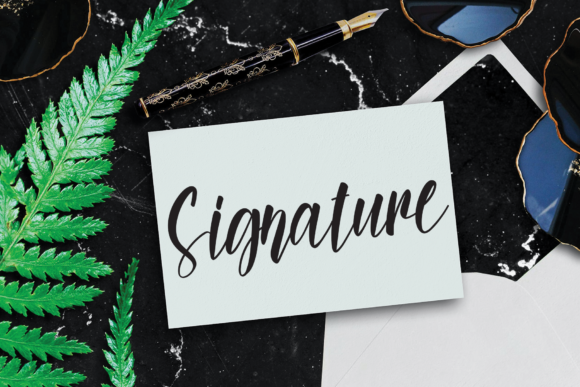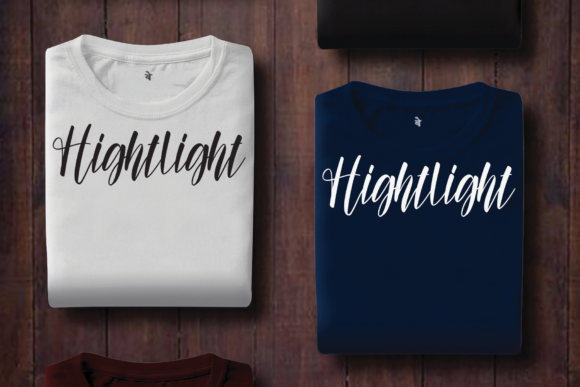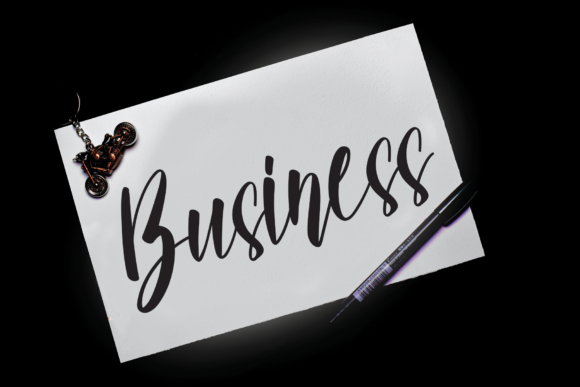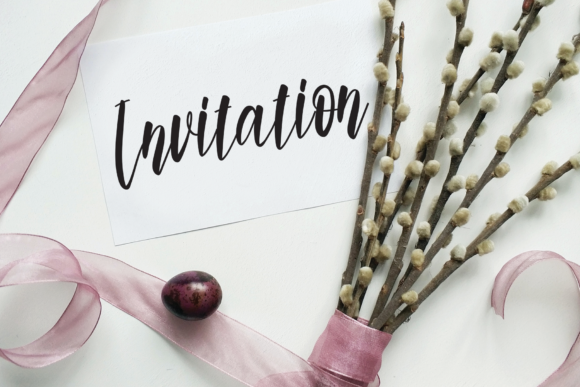
Designing a Birthday to Remember
There’s something magical about celebrating a friend’s birthday. The memories, the laughter, the cake – it’s a moment to cherish. And what’s a birthday celebration without a beautiful, personalized invitation or card? That’s where the Birthday Font comes in – a chic, flowing script font that adds a touch of elegance and whimsy to any design project.
With its stylish alternates and ligatures, the Birthday Font is the perfect match for any project that needs a dash of casualness and trendiness. Whether you’re designing a birthday invitation, a social media post, or a branding campaign, this font is sure to make your designs stand out. And as a designer, you know how valuable it is to have the right font at your fingertips – one that can elevate your work and make it truly special.
Birthday Font Key Features
- Font Family: Birthday Font is a unique and custom font designed for special occasions, making it perfect for birthday invitations, cards, and party decorations.
- Unique Characteristics: The Birthday Font features playful, cursive script and swashes, adding a celebratory touch to any design. The font also includes various decorative elements, such as stars, balloons, and confetti.
Birthday Font Review
Overall, I think the Birthday Font is a decent choice for birthday-themed designs, but it has its limitations. ✨ Here are some of its strengths:
- Fun and playful vibe: The font has a carefree and celebratory feel that’s perfect for birthday invitations, party decorations, and other related projects.
- Versatility: The font comes in a range of weights and styles, allowing you to customize it to fit your design needs.
- Easy to read: Despite its playful nature, the font is still easy to read and understand, even in smaller sizes.
- Limited expressiveness: While the font is fun and playful, it may not be the best choice for more serious or formal designs.
- Potential for overuse: The font’s celebratory vibe can be a bit overwhelming if used too much, so be sure to balance it with other design elements.
- Not ideal for body text: Due to its playful nature, the font may not be the best choice for large blocks of text, such as articles or blog posts.
Overall, the Birthday Font is a solid choice for birthday-themed designs, but it’s not a one-size-fits-all solution. With some careful consideration and balancing, it can add a fun and playful touch to your designs.